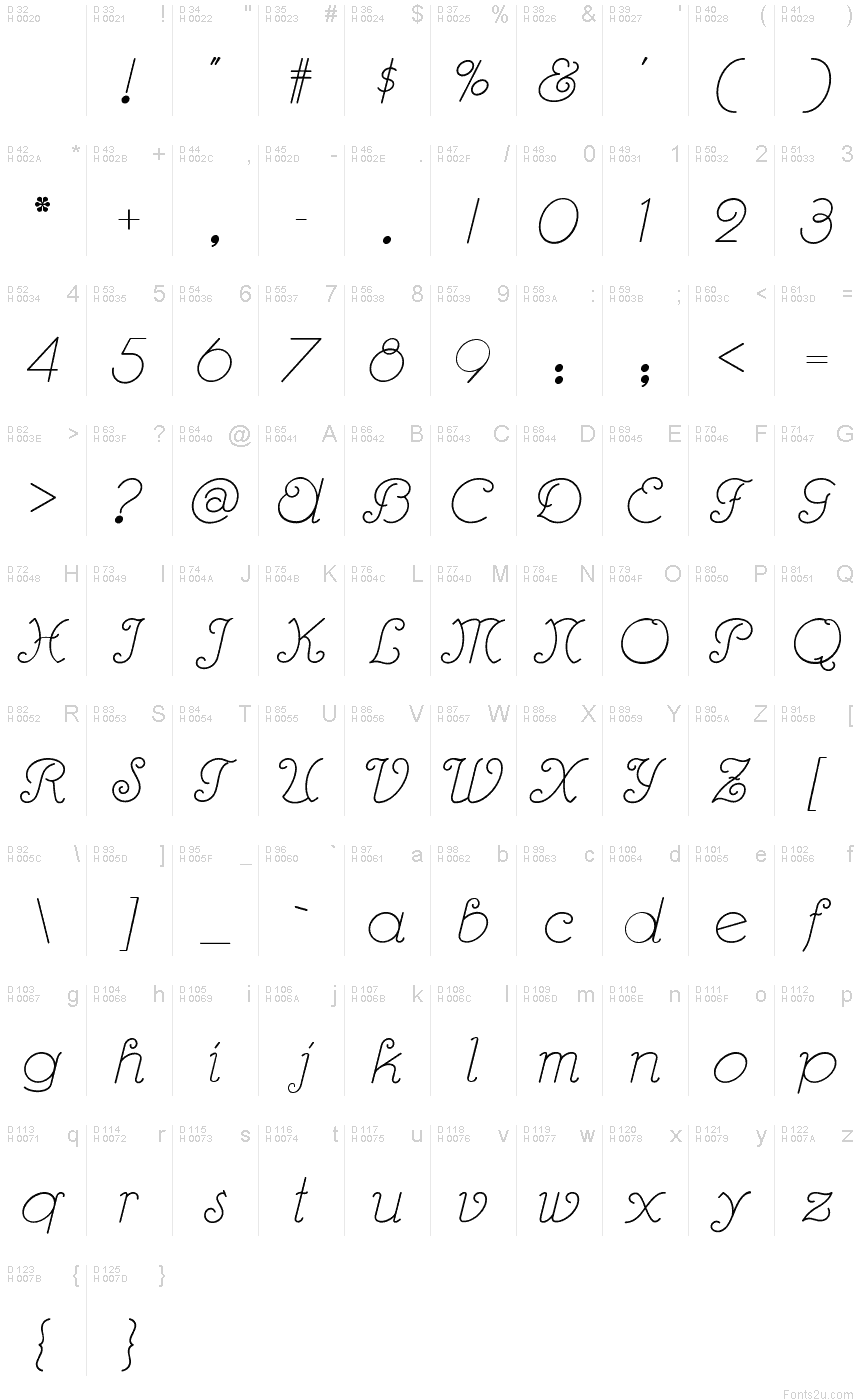
Rhumba Script NF by Nick Curtis of Nick's Fonts is a free calligraphic script with tall, sweeping letters, finely drawn strokes, and a pronounced rightward slant. Broad loops and curled finishes keep the writing graceful and theatrical.
Wedding invitations are its clearest setting because the flowing curves lend names, place names, and formal details a polished handwritten air. The same decorative movement suits boutique branding, beauty packaging, and fashion editorials, especially when the lettering should feel refined yet personal. It is most convincing on invitations, where the looping forms can become part of borders, flourishes, and other occasion ornament.